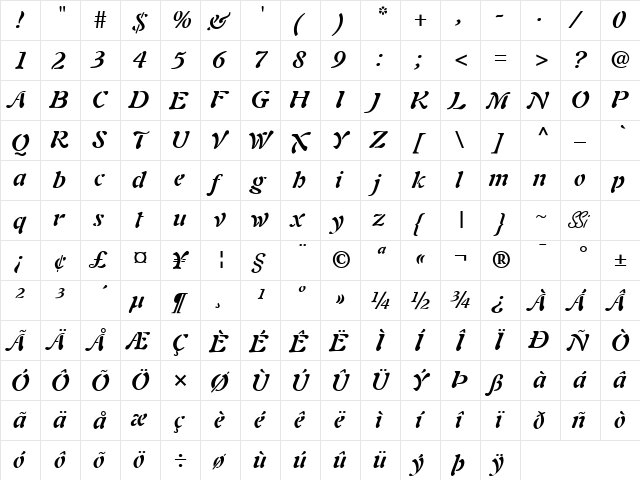
Palette SSi Bold Italic
Design Context for Palette SSi Typeface
Palette SSi is a composed and adaptable typeface that performs quietly and consistently across a wide range of design contexts. Its italic angle brings a sense of urgency and motion to the letterforms. Its bold stroke weight gives it real presence on the page.
Pro Tip: Try Palette SSi for annotation and caption copy alongside an upright companion — the contrast in angle creates a dynamic but ordered typographic system.